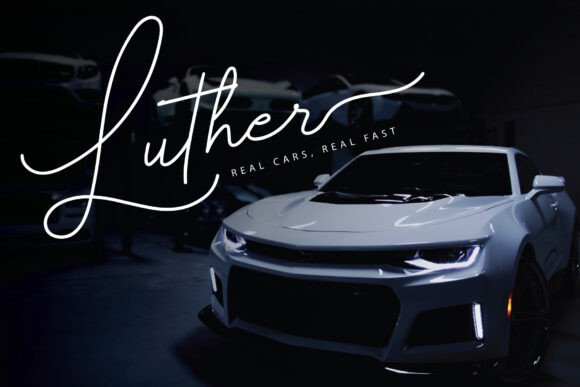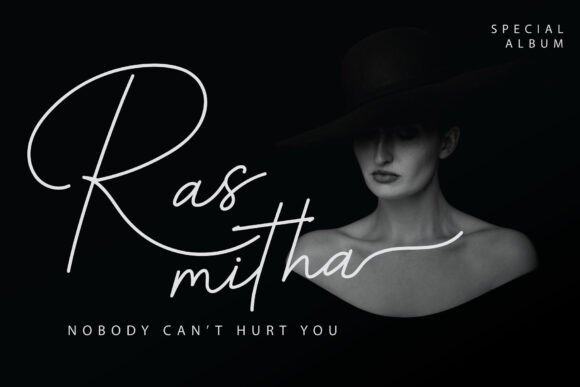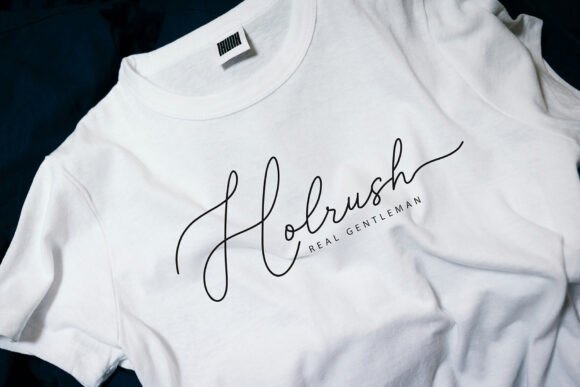
Better Days Font: Elegant Signature Script for Modern Branding
About the Better Days Font
Elevate your designs with Better Days Font, a font that combines sophistication with readability. Better Days Script consists of a fashionable sophisticated signature-style script with its own unique curves and an elegant inky flow. It is perfect for photography, watermark, social media posts, advertisements, logos & branding, invitation, product designs, label, stationery, wedding designs, product packaging, special events or anything that need handwriting taste.
Better Days Font Usage Examples
Better Days Font Example